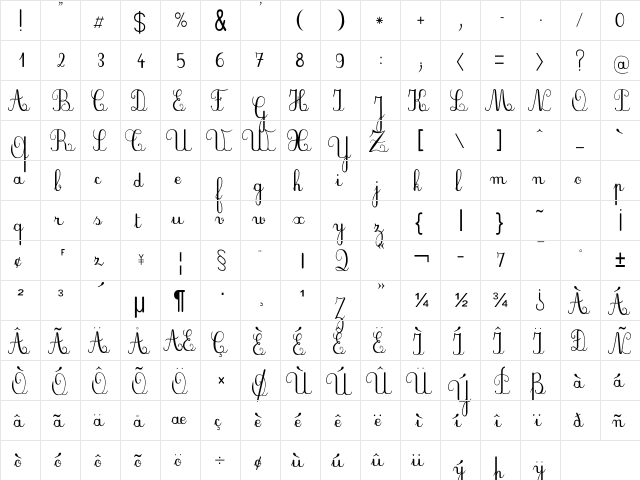
PlumBAE Regular
Design Context for PlumBAE Typeface
PlumBAE takes a measured approach to typography — its balanced proportions and neutral character make it a reliable workhorse for both digital and print work.